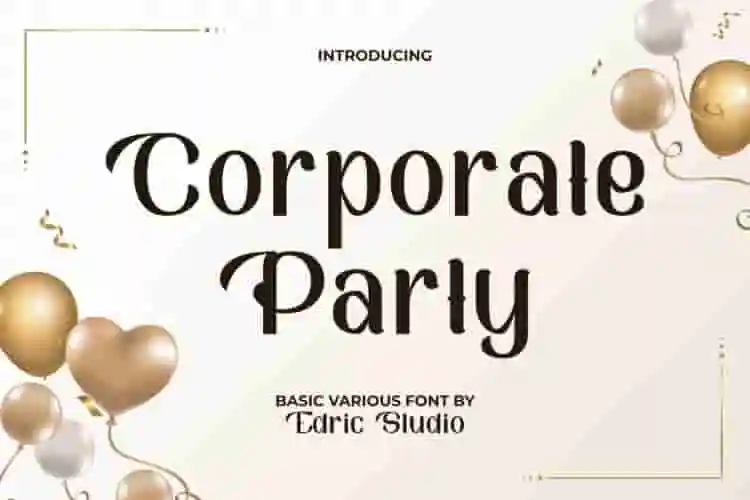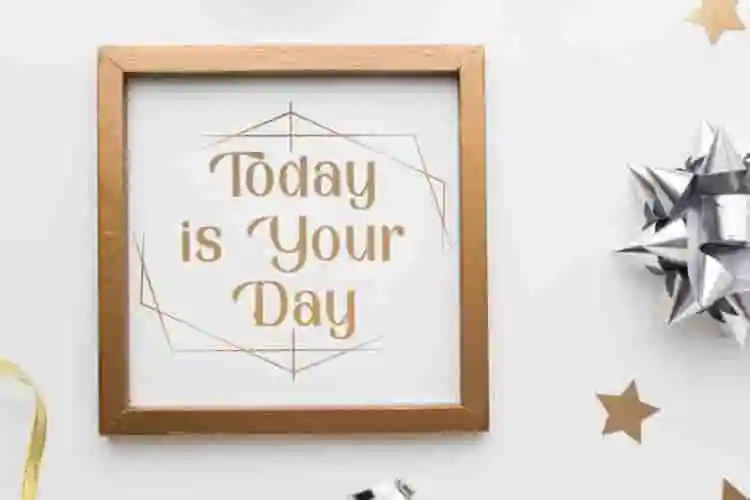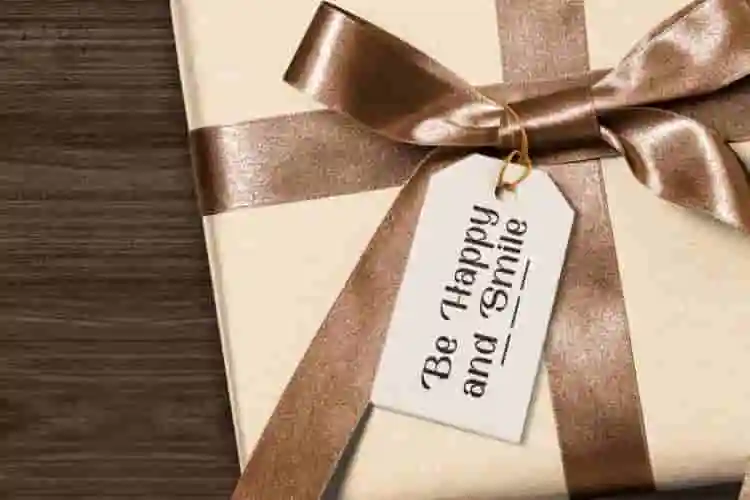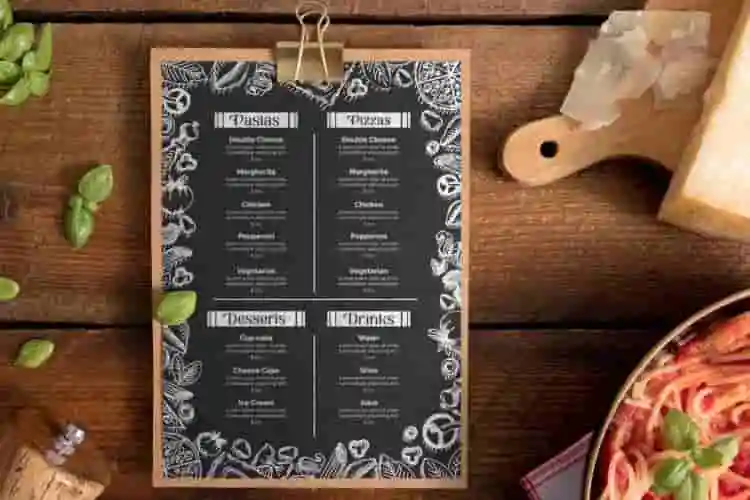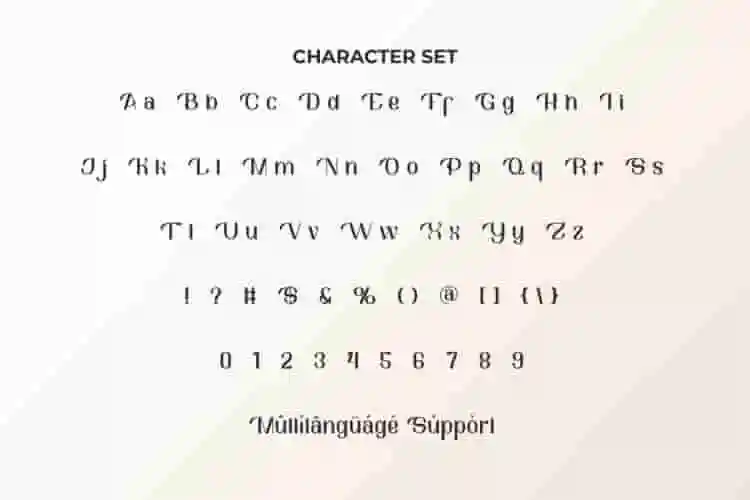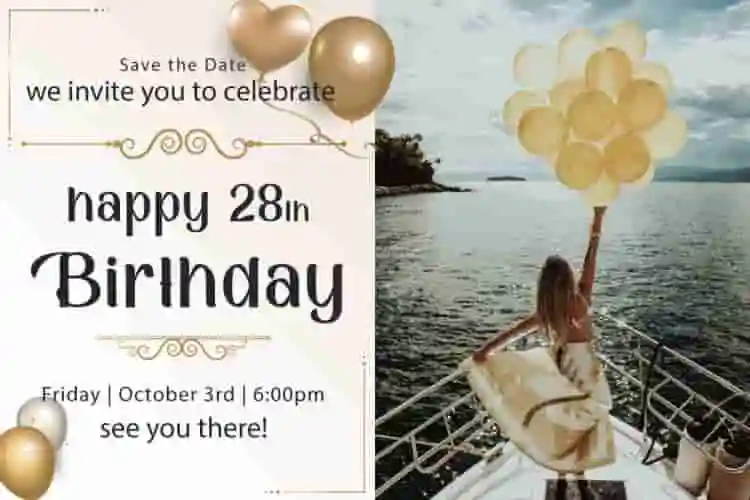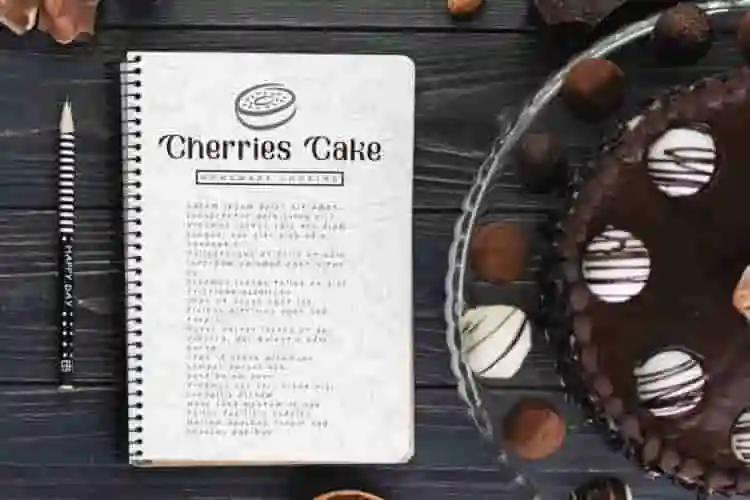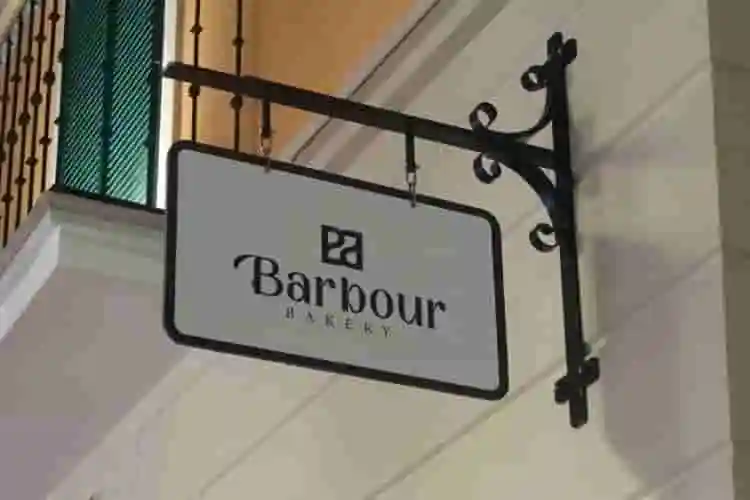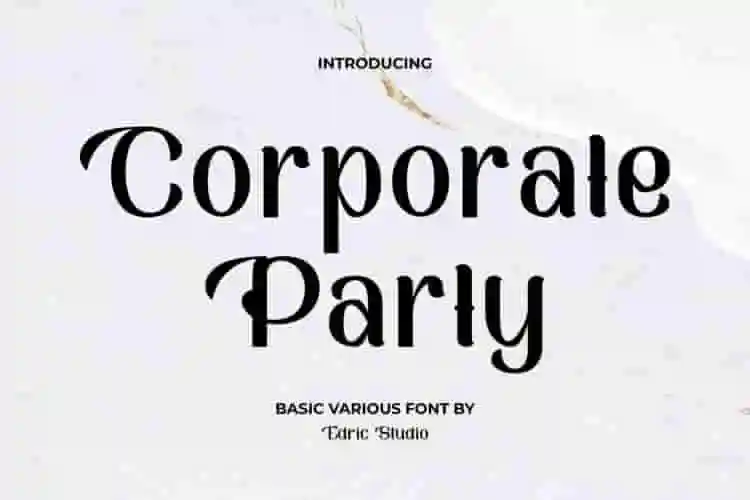
Corporate Party Font is a modern display part of the basic font, created by EdricStudio. This font has a clean look with perfect thickness, and one thing that makes it stand out, the tail at the beginning of each Uppercase makes it awesome. It will be perfect for all industries, such as bakery, birthday party, cooking lessons, event organizer, handicraft, restaurant, and more.
Corporate Party Font comes with a full set of Uppercase and Lowercase Basic Characters, Number, large range of Punctuation and Symbol. It has a stunning characters set, perfectly managed with well spaced and kerning. Corporate Party Font will be great for any projects (with extended license) including : brand logo, header, invitation, label, menu, quote, signage, and will have the potential to take your every creative idea to the highest level!
With its sharp edges, strong presence, and stylish curves, Corporate Party Display Font is ideal for eye-catching titles, social media graphics, event flyers, and branding materials. It’s a font that makes your message loud, clear, and full of personality.
This high-impact display font is designed for designers, marketers, and creators who want to stand out. From party invitations to business promos, Corporate Party adds just the right amount of flair without sacrificing legibility.
- All-caps alphabet
- Bold geometric letterforms